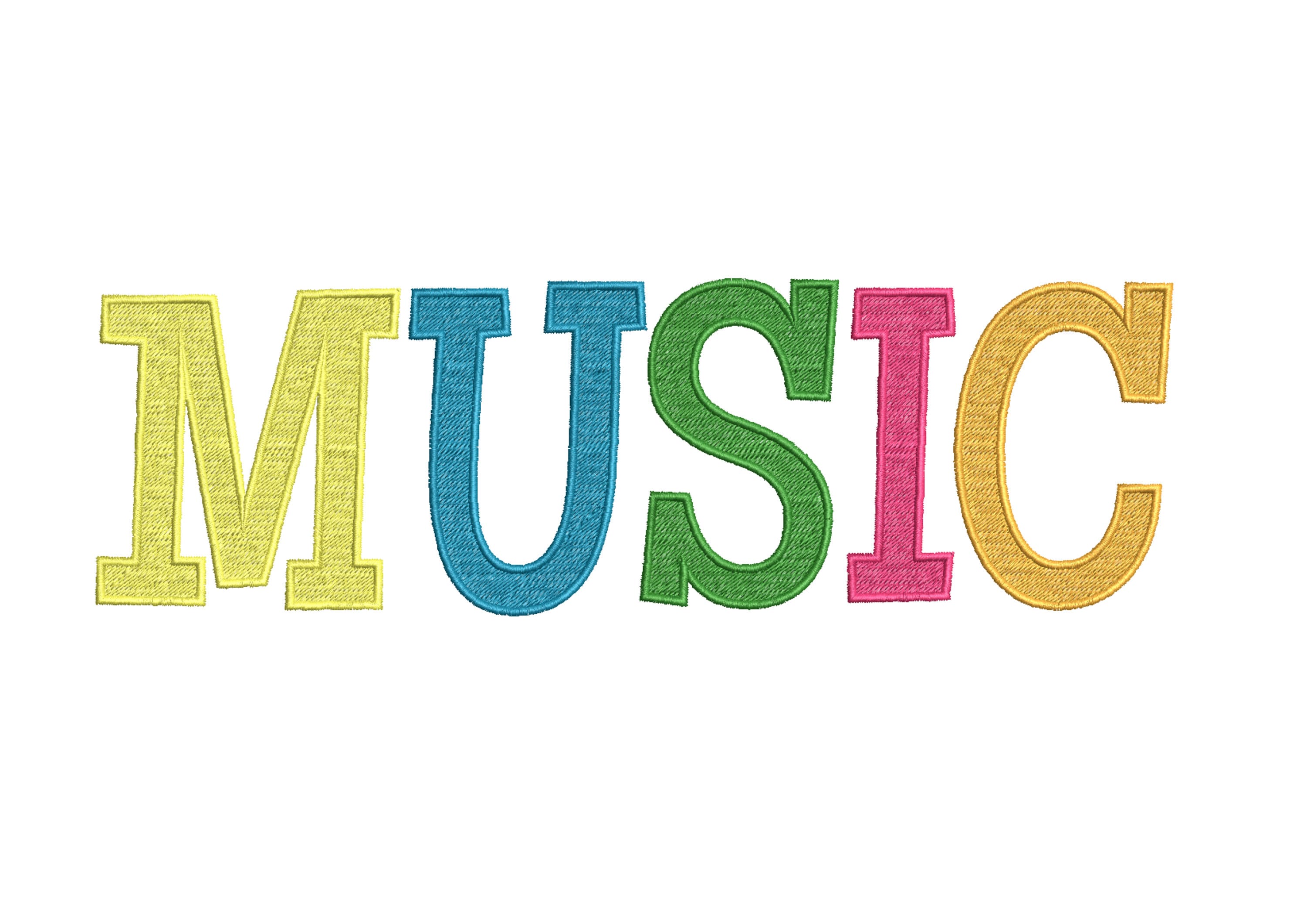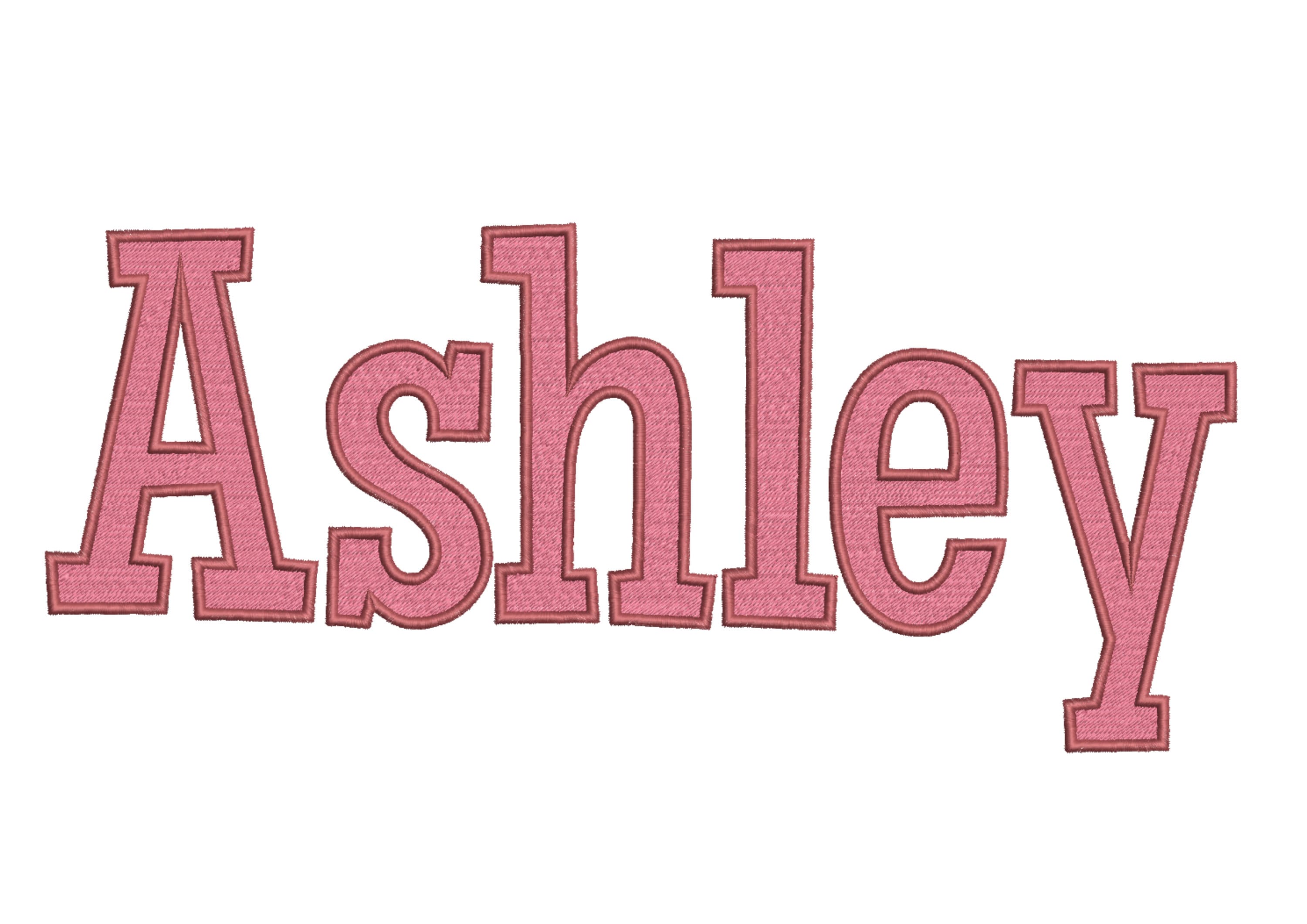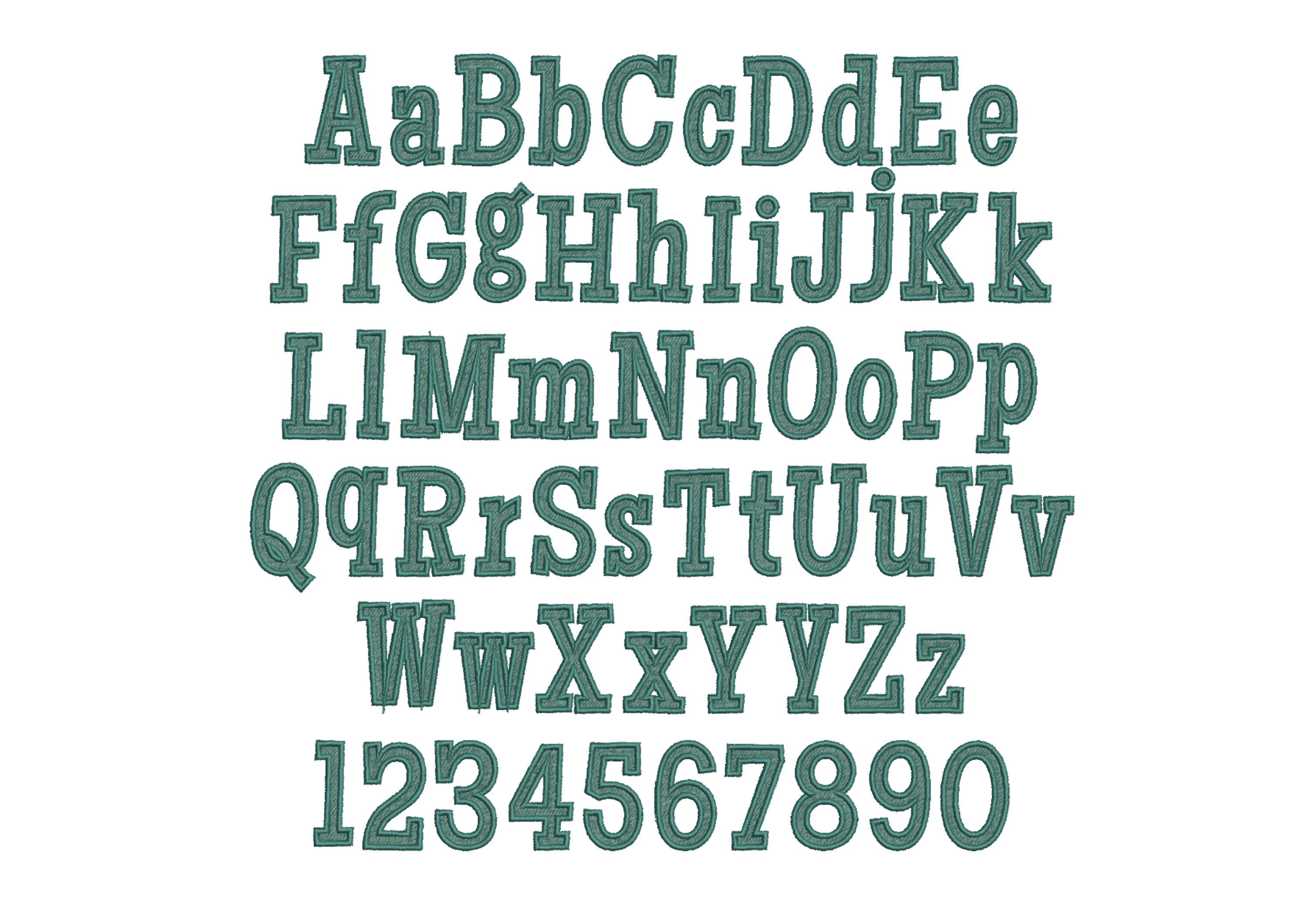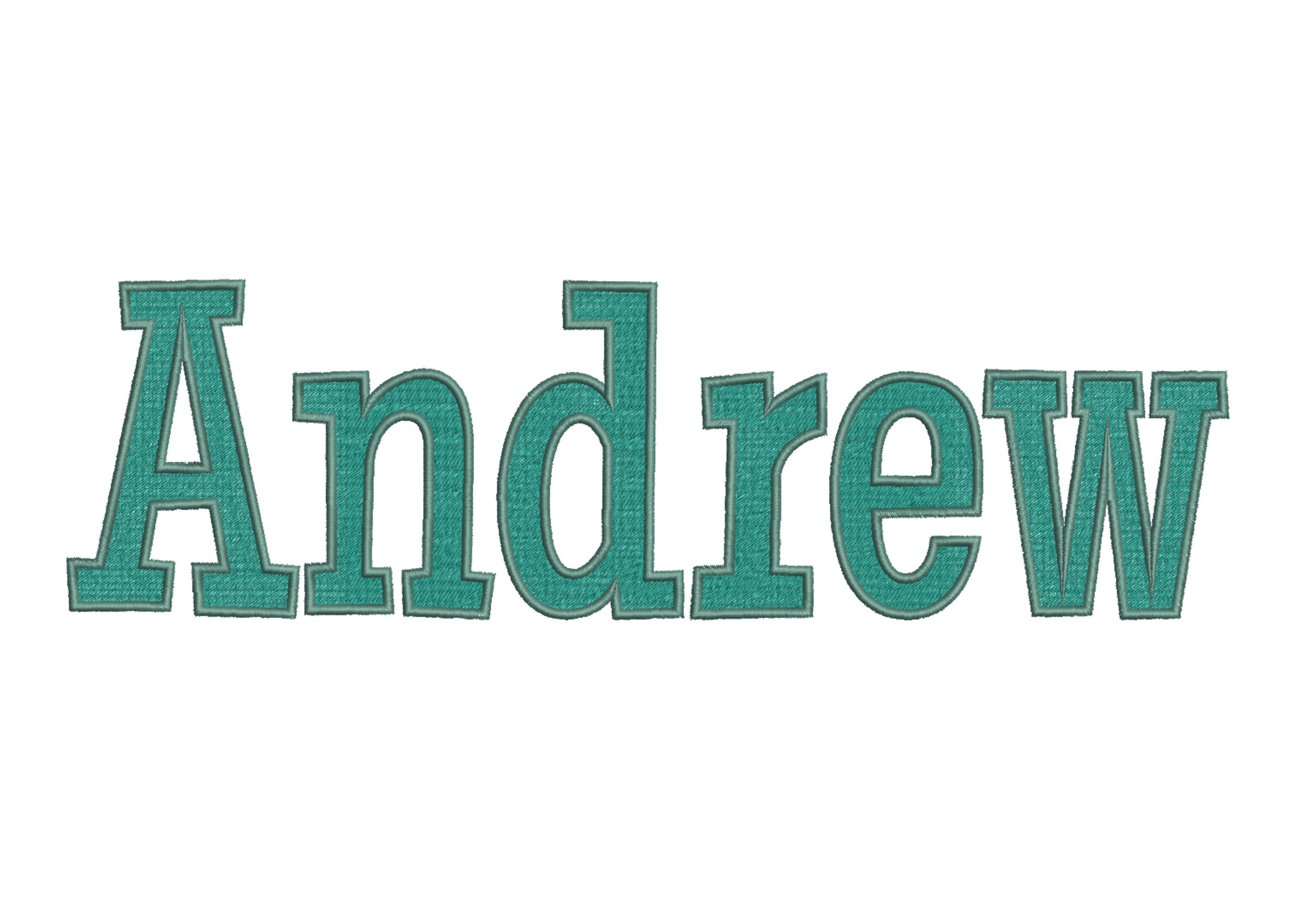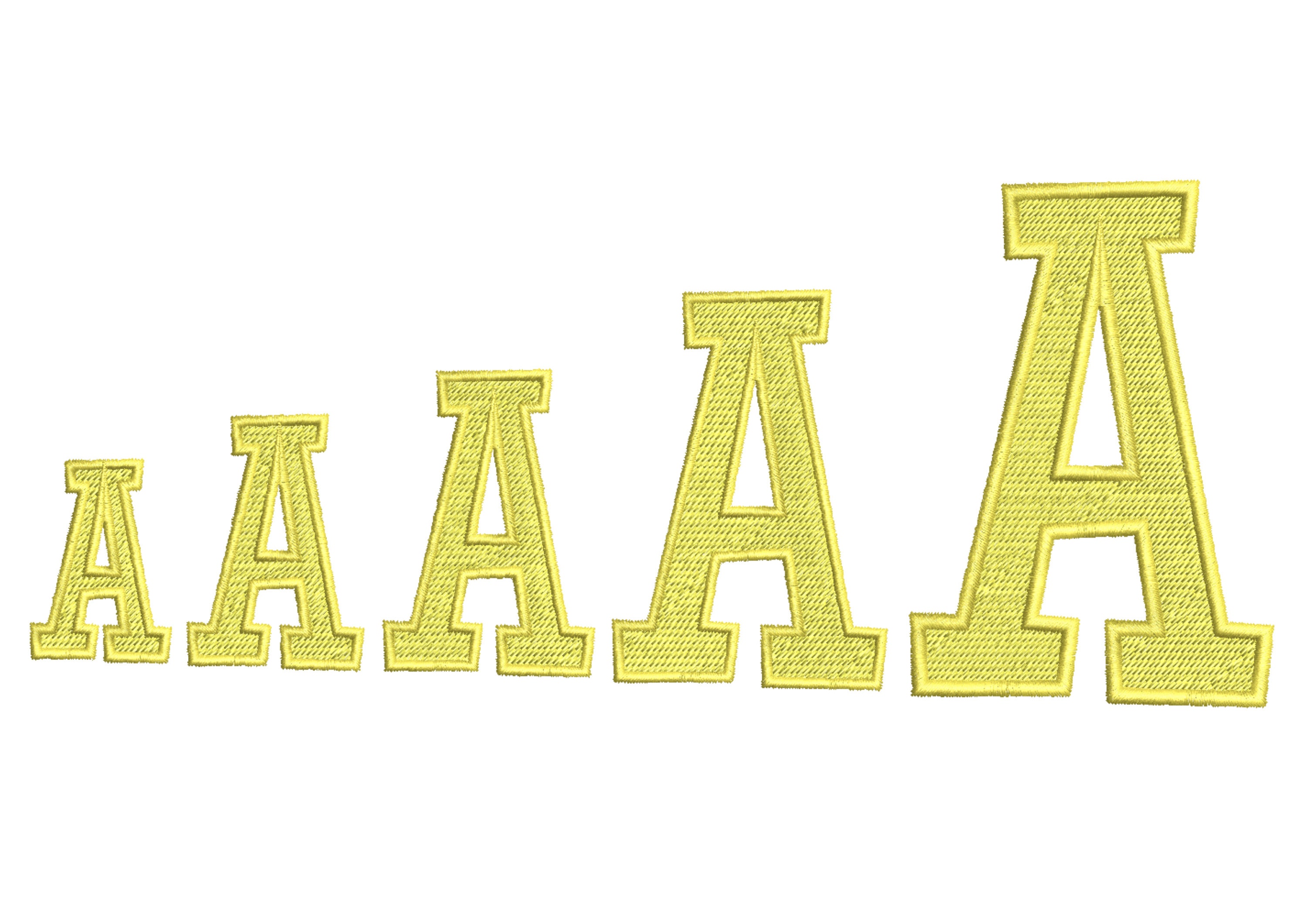
Awesome fill stitch and outline Font alphabet machine embroidery designs sizes from 1.5 thru 4 inches, kids name monogram BX included
Uppercase and lowercase letters A-Z, and numbers 0-9.